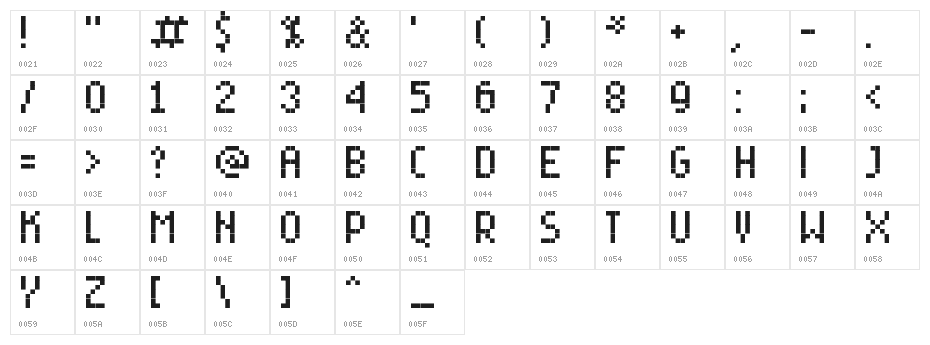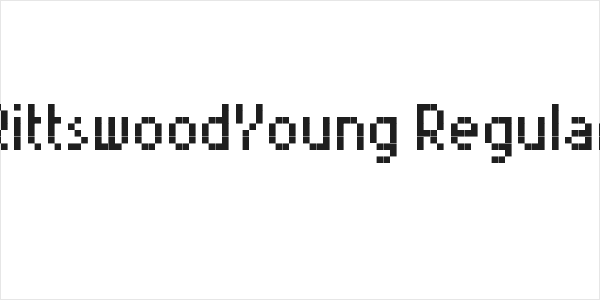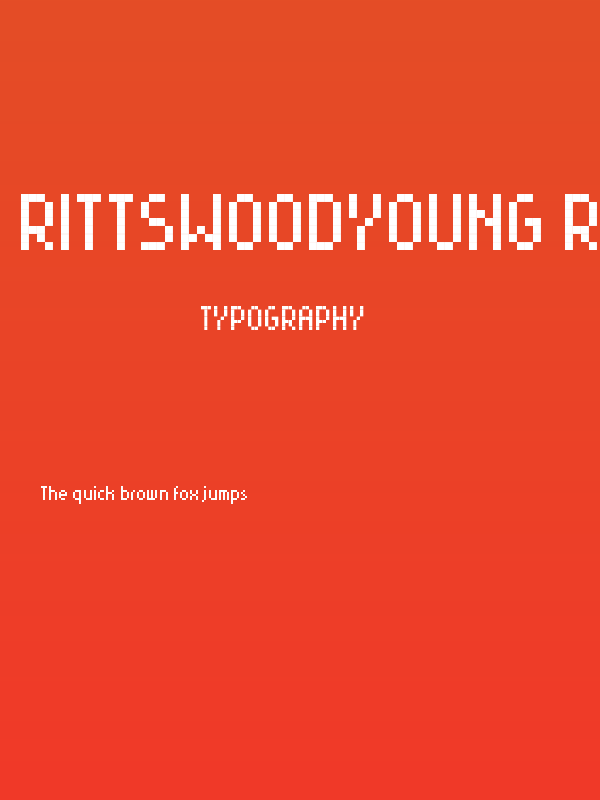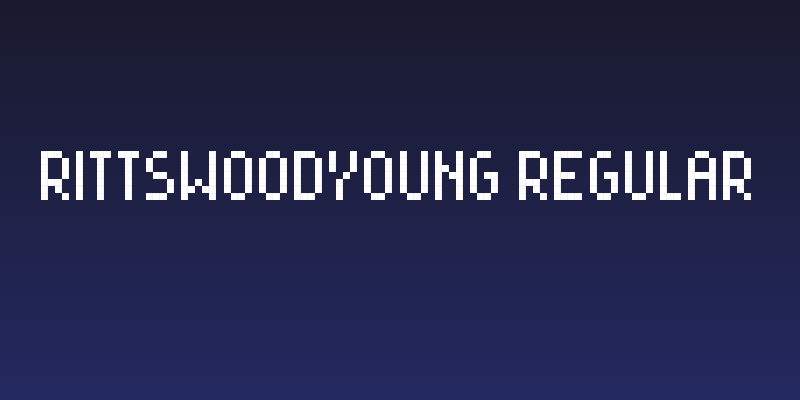
RittswoodYoung Regular Font
RittswoodYoung Regular Description
This font features a bold, pixelated design reminiscent of classic video game graphics. Each character is composed of small square blocks, creating a distinct digital aesthetic. The uppercase and lowercase letters maintain a consistent height, while the numbers and special characters follow the same pixelated style. This uniformity across characters gives it a cohesive look, ideal for retro-themed projects. The font's blocky nature ensures high legibility, even at smaller sizes, making it versatile for various digital applications.
| Overall Style | Retro |
| Use Case | Headlines, Logos, Digital displays |
| Proposed Projects | Ideal for video game design, digital art projects, retro-themed websites, and pixel art. |